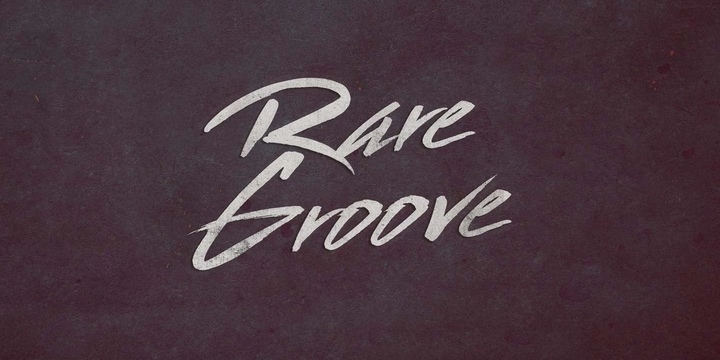
Rare Groove Font
Rare Groove Font is perfect for music album covers, vintage record labels, funk-inspired branding, retro club posters, soul music graphics, 70s-themed designs, jazz festival promotions, and nostalgic entertainment marketing.
This exciting Rare Groove Font pulsates with the rhythmic energy of classic funk and soul music, featuring distinctive letterforms that capture the essence of vinyl records and underground music culture. The font's groovy character and authentic retro styling make it an exceptional choice for projects seeking to evoke the smooth sophistication and cultural richness of the golden age of rhythm and blues.
The Rare Groove Font family includes multiple stylistic variations such as Regular, Bold, Outline, Shadow, Textured, and Vinyl-inspired effects, providing designers with comprehensive options for creating authentic music-themed visual experiences and nostalgic brand communications.
Discover musical typography with Rare Groove Font Free Download - a rhythm-infused typeface that channels the iconic aesthetic of classic soul, funk, and jazz eras. This versatile font seamlessly blends musical heritage with contemporary functionality, making it perfect for brands and projects that want to tap into the timeless appeal and cultural significance of legendary music movements.
The soulful character of Rare Groove Font makes it particularly effective for music labels, entertainment venues, vintage clothing brands, record stores, and cultural organizations that need to communicate authenticity, creativity, and musical sophistication. Its groove-inspired styling resonates with audiences who appreciate classic music culture and vintage aesthetic sensibilities.
Music industry professionals choose Rare Groove Font for its authentic period styling and exceptional visual rhythm across various media applications. The font maintains its musical charm from small merchandise designs to large concert venue signage, ensuring consistent cultural appeal and brand recognition throughout all promotional materials.
The distinctive personality of Rare Groove Font creates immediate emotional connections with music lovers through powerful cultural associations and nostalgic memories of classic recording eras. This makes it invaluable for brands seeking to leverage musical heritage for marketing campaigns, product launches, and entertainment properties.
Contemporary designers utilize Rare Groove Font to create unique brand identities that stand out in modern markets by embracing musical authenticity and retro-cool aesthetics that appeal to both music enthusiasts who lived through these classic eras and younger generations discovering timeless groove culture.